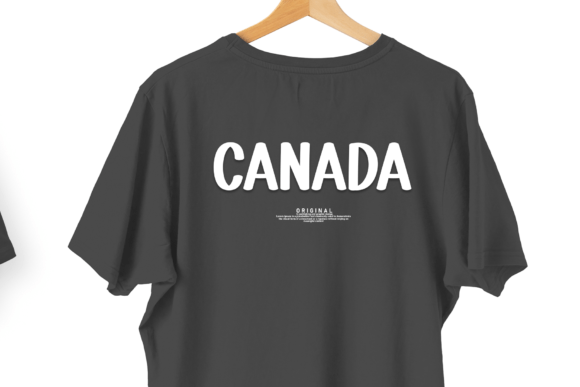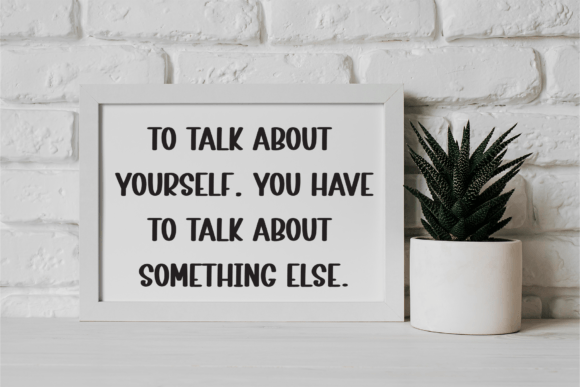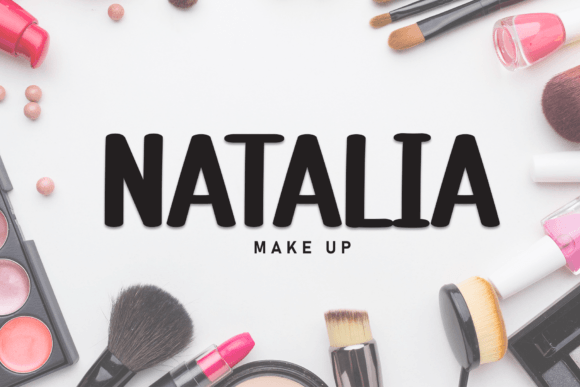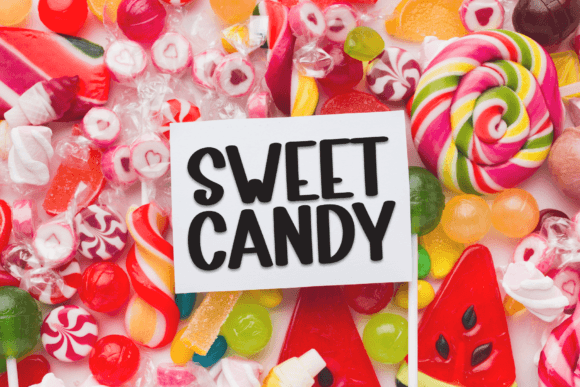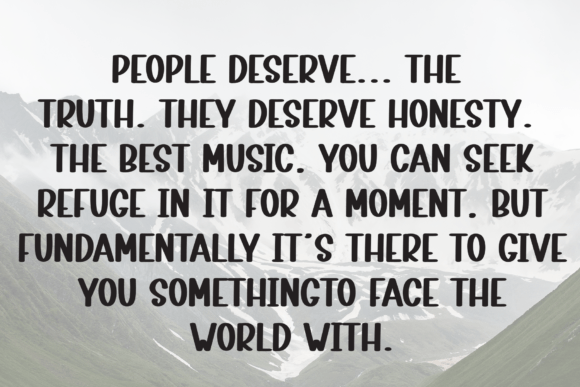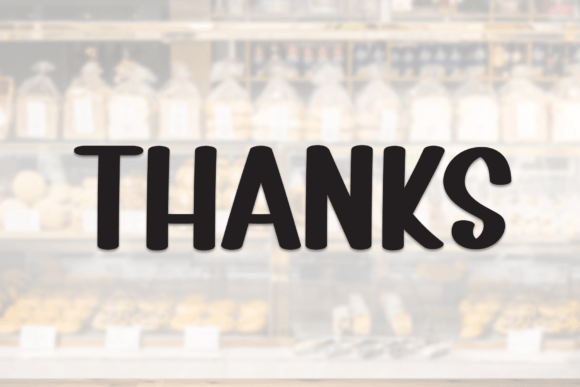
Bakery Font: The Sweetest Addition to Your Design Collection
Are you a designer or crafter looking for a font that adds a touch of whimsy and fun to your creations? Look no further than the Bakery font! This sweet and friendly handwritten display font is perfect for a variety of design projects, from wedding invitations and cards to branding and packaging.
What Makes Bakery Font So Special?
Bakery font is a one-of-a-kind typeface that is sure to capture the attention of your audience. Its cute and fun design makes it ideal for projects that require a playful touch. The font’s handwritten style gives it a personal and approachable feel, making it perfect for designs that need to connect with the viewer on a more emotional level.
Wedding invitations and cards are a great way to use the Bakery font. The font’s sweet and romantic feel makes it perfect for sharing the joy and excitement of a wedding with friends and family. Whether you’re designing a formal or informal invitation, the Bakery font is sure to add a touch of elegance and sophistication.
Ideal for Crafters and Small Business Owners
As a crafter or small business owner, you know how important it is to have a unique and recognizable brand. The Bakery font can help you achieve that. Use it to create eye-catching packaging, labels, or business cards that will set you apart from the competition. The font’s playful design makes it perfect for brands that want to convey a sense of fun and approachability.
Key Features of Bakery Font
- Handwritten style: The Bakery font has a beautiful, handwritten style that gives it a personal and approachable feel.
- Cute and fun design: The font’s cute and fun design makes it perfect for projects that require a playful touch.
- Display font: The Bakery font is a display font, making it perfect for headlines, titles, and other design elements that need to stand out.
- Easy to read: Despite its playful design, the Bakery font is easy to read, making it perfect for body text and other design elements.
How to Use Bakery Font in Your Designs
Using the Bakery font in your designs is easy. Here are a few tips to get you started:
- Pair it with a simple font: Pair the Bakery font with a simple font to create a beautiful contrast.
- Use it for headlines: The Bakery font is perfect for headlines and titles. Use it to add a touch of whimsy and fun to your design.
- Experiment with colors: The Bakery font looks great in a variety of colors. Experiment with different colors to find the one that works best for your design.
The Bakery font is a sweet and friendly handwritten display font that is perfect for designers and crafters looking to add a touch of whimsy and fun to their creations. Its cute and fun design makes it ideal for wedding invitations, cards, and other design projects that require a playful touch. With its easy-to-read design and versatile style, the Bakery font is sure to become a favorite in your design collection.